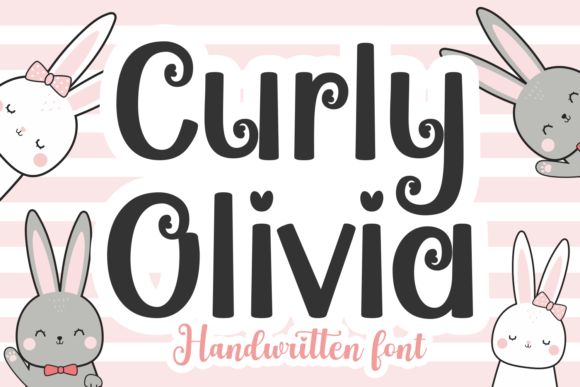
Introducing Curly Olivia Font: The Perfect Handwritten Font for Children-Themed Designs
Are you a designer or crafter looking for a friendly and cute handwritten font to add a personal touch to your creations? Look no further than Curly Olivia Font! This beautiful, curly font is perfect for creating children-themed designs, Easter cards, posters, quotes, wall art, birthday cards, stickers, art prints, t-shirts, and more.
What is Curly Olivia Font?
Curly Olivia Font is a handwritten font designed to bring a smile to your face. Its curly and fancy letters are perfect for adding a touch of whimsy and playfulness to your designs. Whether you’re creating something for kids or adults, this font is sure to delight.
Features of Curly Olivia Font
- Handwritten with love: Curly Olivia Font is a carefully crafted handwritten font, making each letter unique and full of character.
- Cute and friendly: The font’s curly and playful design makes it perfect for children-themed designs and Easter cards.
- Multipurpose: Use Curly Olivia Font for a wide range of projects, including posters, quotes, wall art, birthday cards, stickers, art prints, t-shirts, and more.
- Easily readable: Despite its curly design, Curly Olivia Font is easy to read, making it perfect for quotes, posters, and other text-based designs.
Uses of Curly Olivia Font
Curly Olivia Font is a versatile font that can be used for a wide range of projects, including:
- Children-themed designs: Create adorable designs for kids, including birthday cards, stickers, and art prints.
- Easter cards: Add a touch of whimsy to your Easter cards with Curly Olivia Font.
- Posters and quotes: Use Curly Olivia Font to create eye-catching posters and quotes that are sure to inspire.
- Wall art: Create beautiful wall art with Curly Olivia Font, perfect for nurseries, kids’ bedrooms, or playrooms.
- T-shirts and stickers: Use Curly Olivia Font to create fun and playful designs for t-shirts and stickers.
Why Choose Curly Olivia Font?
With so many fonts available, why choose Curly Olivia Font? Here are just a few reasons:
- Unique and playful design: Curly Olivia Font is a one-of-a-kind font that adds a touch of whimsy to any design.
- Easily readable: Despite its curly design, Curly Olivia Font is easy to read, making it perfect for text-based designs.
- Multipurpose: Use Curly Olivia Font for a wide range of projects, from children-themed designs to Easter cards and more.
- High-quality design: Curly Olivia Font is a high-quality font designed with care and attention to detail.
If you’re looking for a friendly and cute handwritten font for your designs, look no further than Curly Olivia Font. With its curly and fancy letters, this font is perfect for children-themed designs, Easter cards, posters, quotes, wall art, birthday cards, stickers, art prints, t-shirts, and more. So why wait? Grab Curly Olivia Font today and start creating!